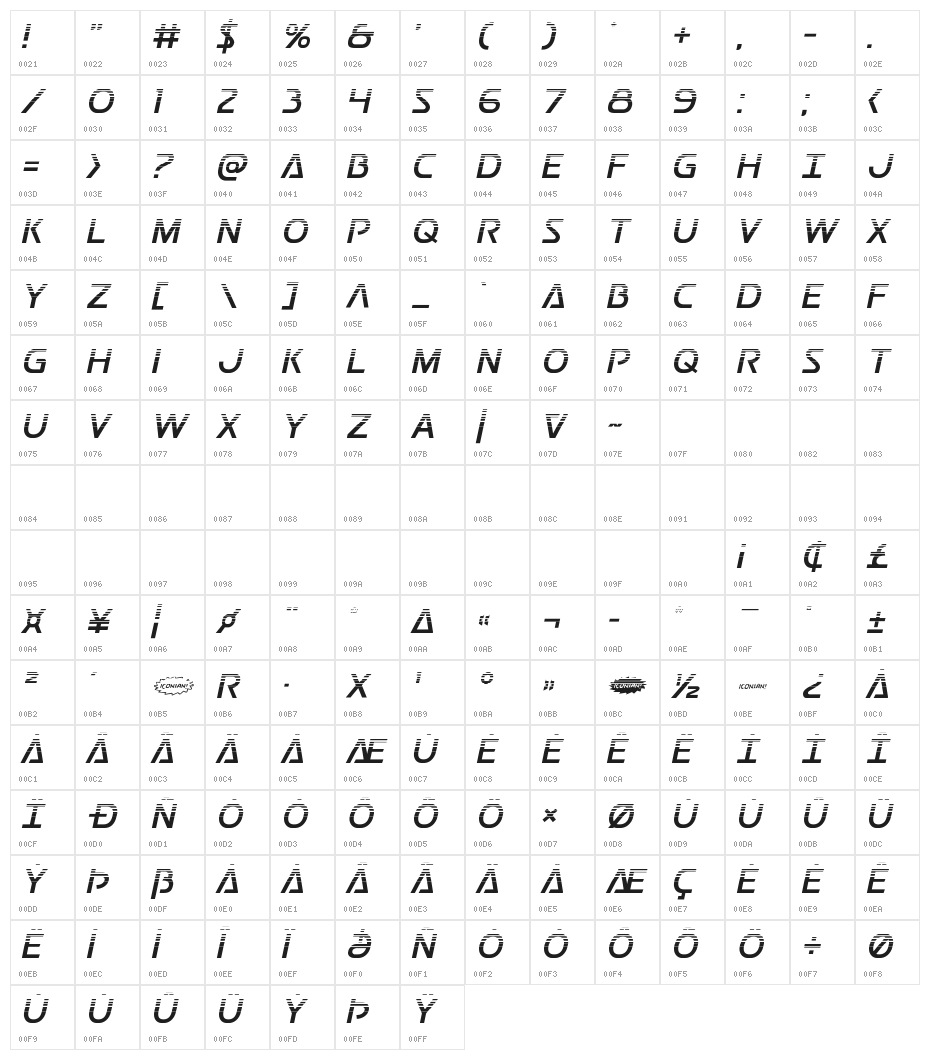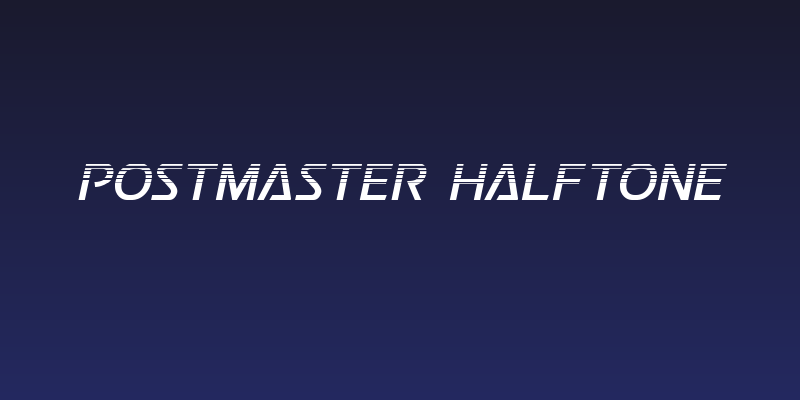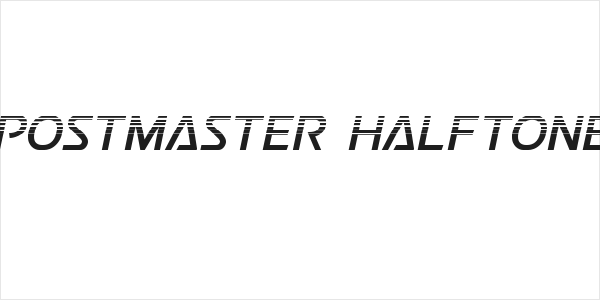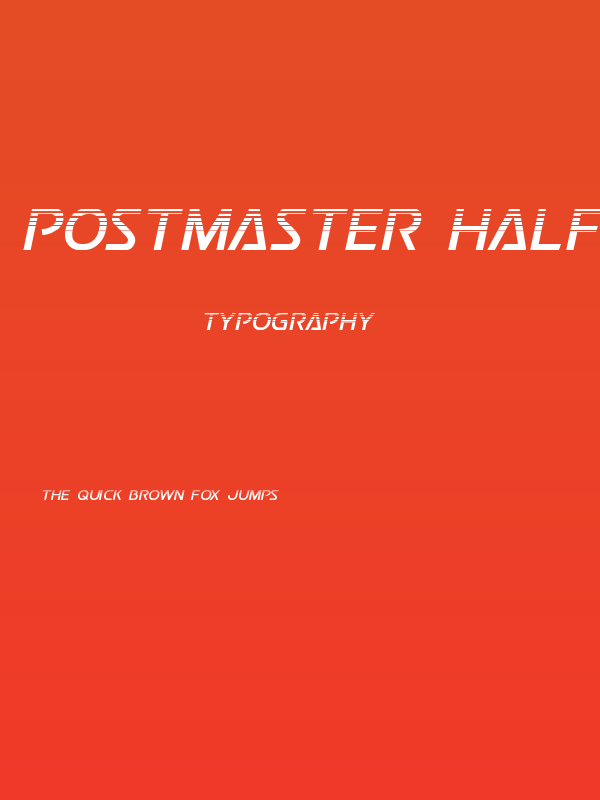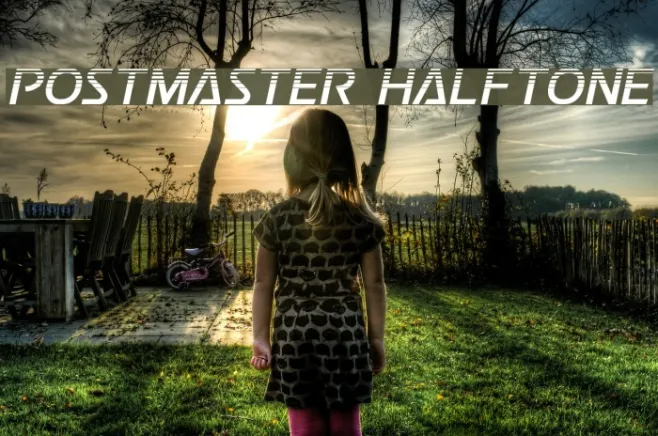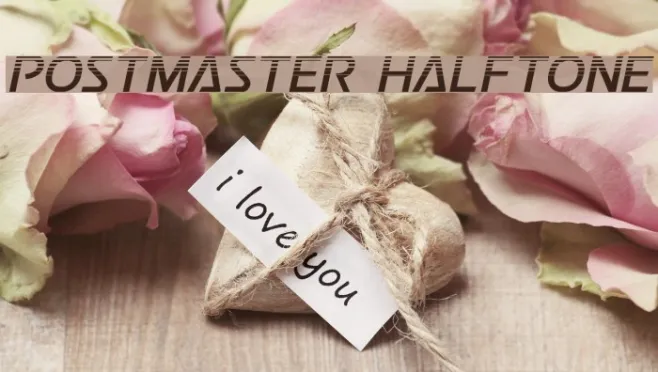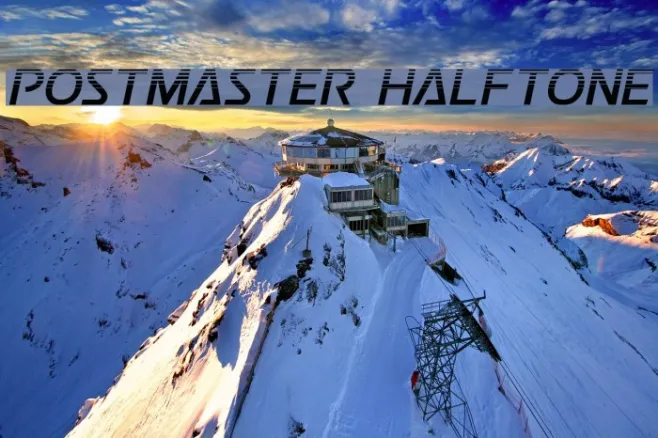
Postmaster Halftone Font
Postmaster Halftone Description
This font features a bold and dynamic design with a halftone effect that gives it a sense of movement and energy. The characters are italicized, adding a forward-leaning appearance that enhances its modern and futuristic style. The uppercase and lowercase letters, along with numbers and special characters, are designed with a consistent pattern of horizontal lines that create a visually striking texture. The font's unique style makes it stand out, making it ideal for projects that require a bold statement.
| Proposed Projects | Ideal for branding, posters, digital art, and any project that requires a futuristic or dynamic look. |